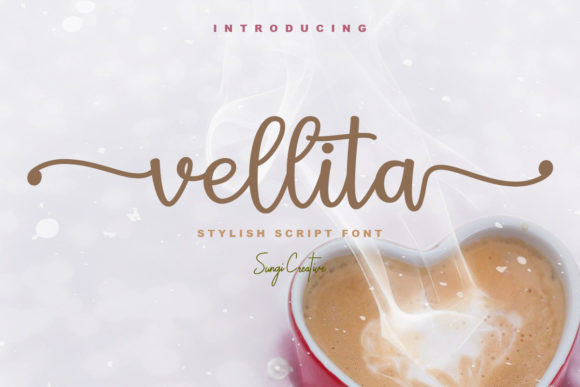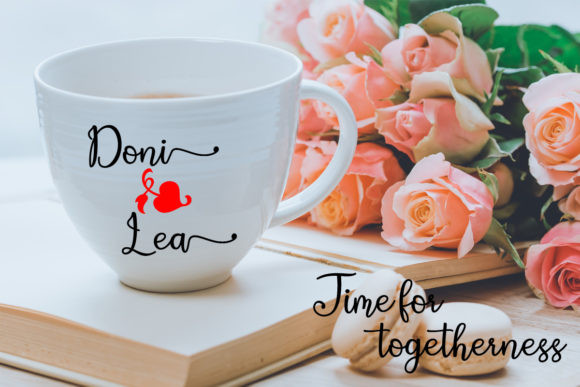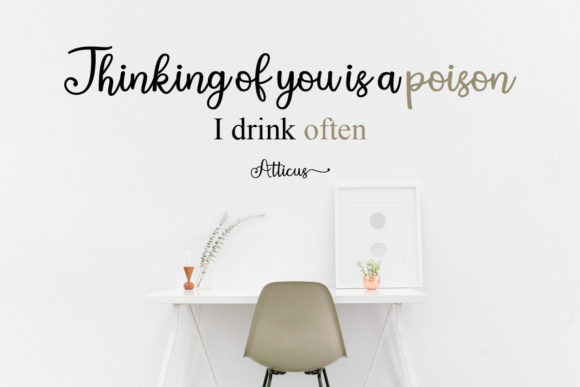
Vellita Font
Vellita is a stylish script font. Fall in love with its authentic feel and use it to create gorgeous wedding invitations, beautiful stationary art, eye-catching social media posts, and cute greeting cards.